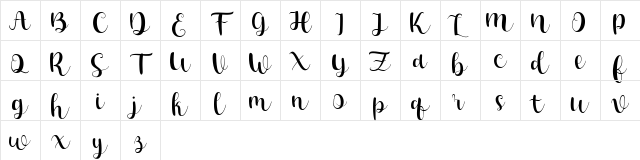
Complete Lucky Walter reguler glyph index. Displaying only characters natively supported by Lucky Walter reguler font.
Lucky Walter is a composed and adaptable typeface that performs quietly and consistently across a wide range of design contexts.